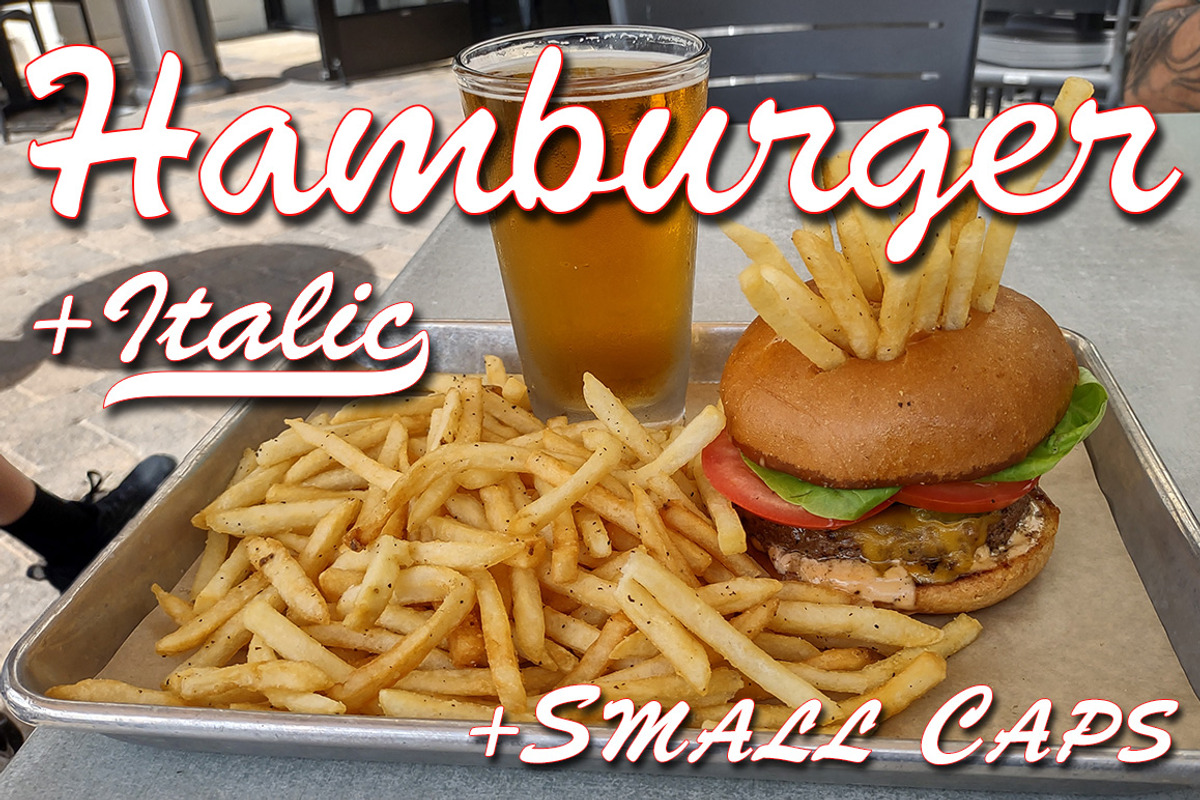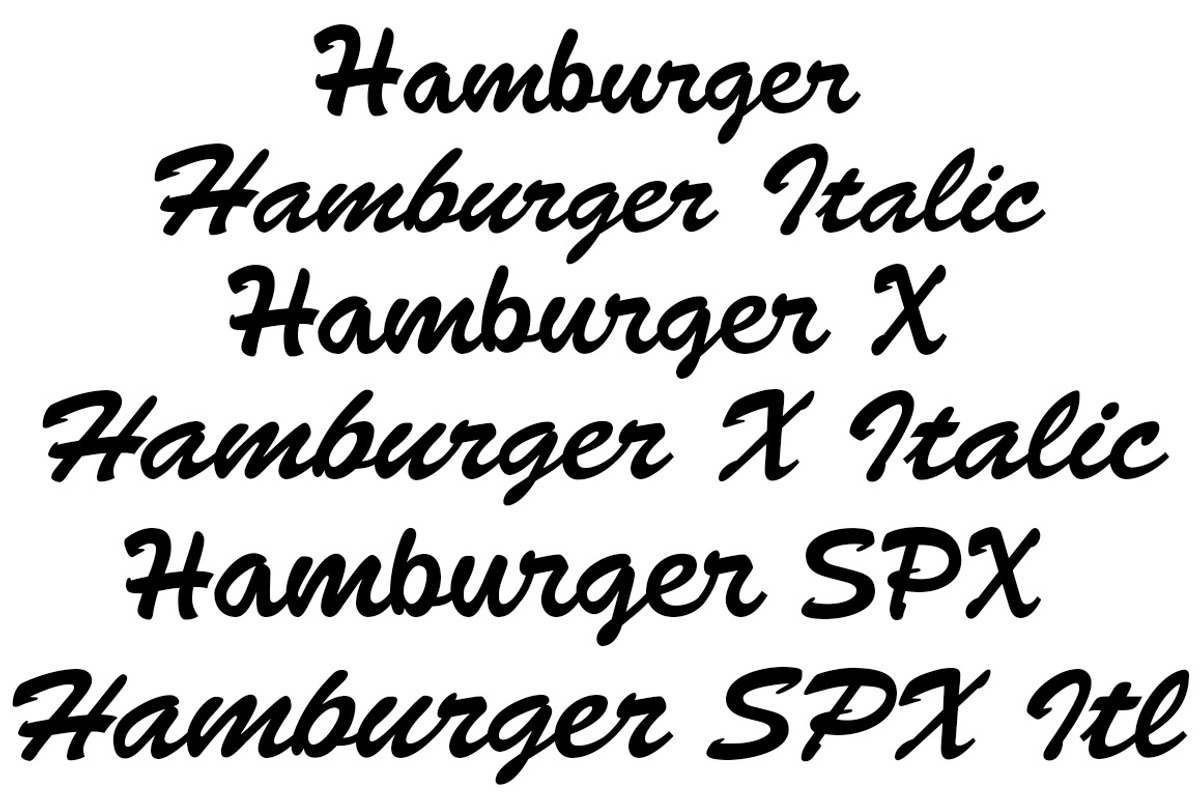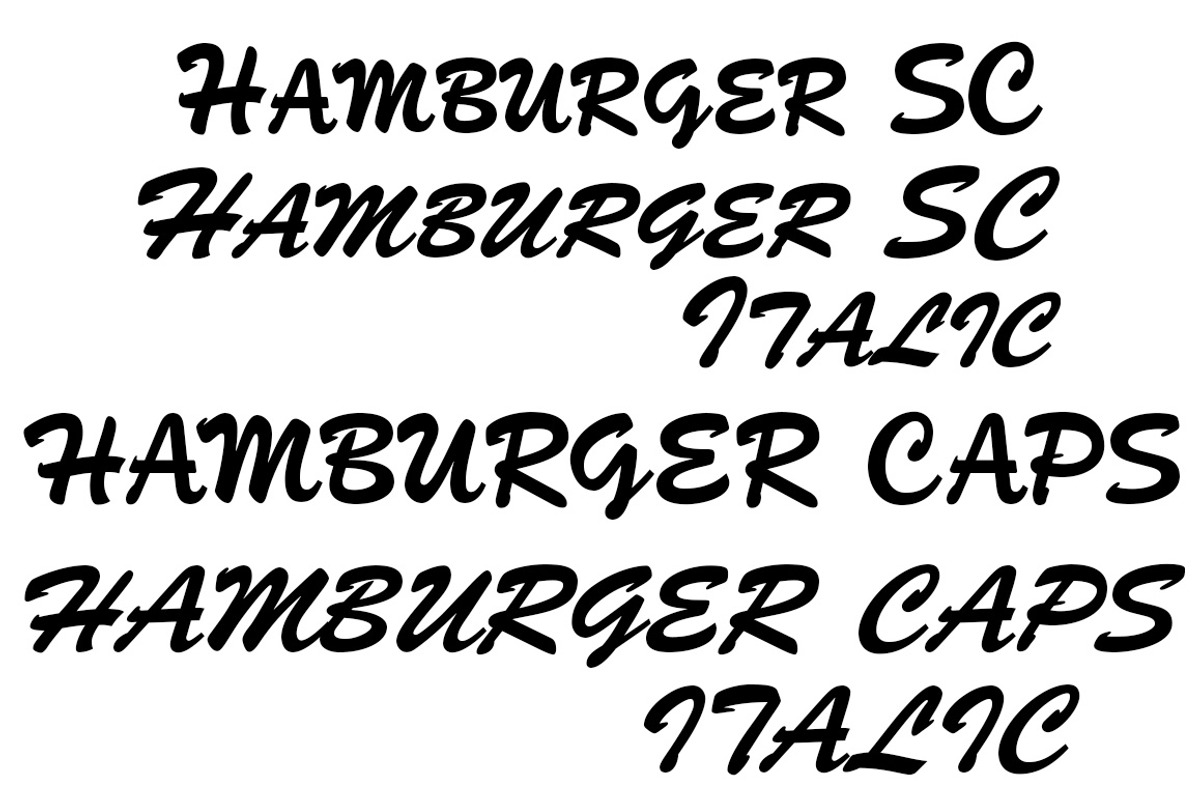
Hamburger
Hamburger is a new font based on the old classic Brush Script.
In this new 2023 version we've back slanted the font to make a near upright version, a lot of hand editing was needed to create the upright version.
We've also created two more versions with higher x-heights, Hamburger X has a little higher x-height while Hamburger SPX has what we call a Super x-height.
The higher x-height versions are well suited for signage, with a higher x-height the font is more easily readable from the street when used as sign lettering on the front of a retail store.
The higher x-height versions are also easier to read when used as logos and lettering on commercial vehicles.
We've also made a small caps version, in the small caps font we've moved the swashes on the lowercase letters inward so they will display closer together. The uppercase on the small caps is the standard uppercase.
We also made an all caps version that follows the same design idea as the small caps version.
Over the years we've watched how people use this old script font and in some logos or some words it works as an all caps font, this is why we've made the caps and small caps versions.
We've also made changes to the original lowercase "b" "g" "u"
We've moved the long uppercase "C" into an alternate position and made a new uppercase "C" that matches the baseline of the other uppercase letters.
We've also added many new alternate glyphs including swash underscores.
We know that you're going to find many new uses for this new Hamburger font.